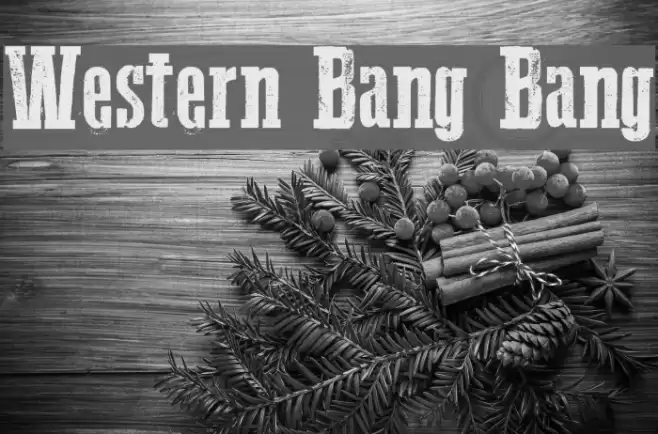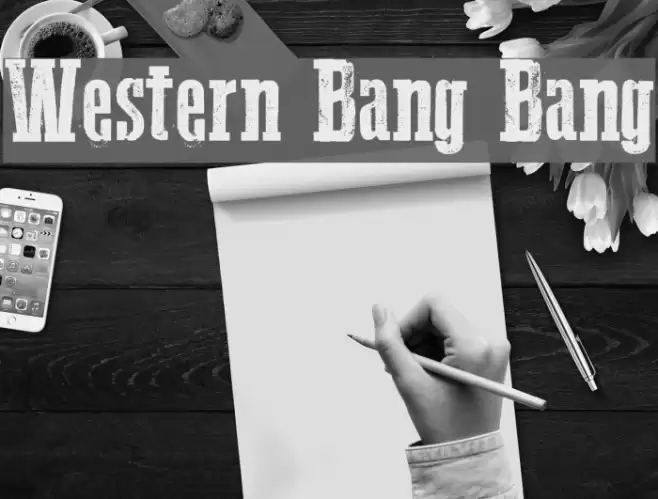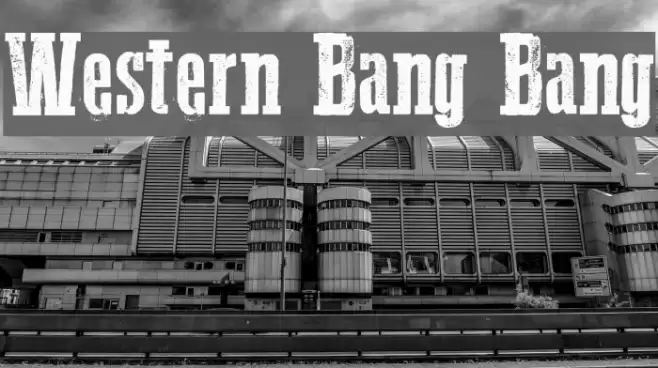
Western Bang Bang Font
Western Bang Bang Description
This font features a bold, distressed style reminiscent of vintage Western aesthetics. The characters are heavily textured, giving them a rugged, worn appearance that suggests a sense of history and adventure. The uppercase and lowercase letters maintain a consistent design, with thick strokes and sharp serifs that enhance their boldness. Numbers and special characters follow the same distressed pattern, ensuring uniformity across all glyphs. This font's unique style makes it ideal for projects that require a touch of nostalgia or a bold statement.
A bold, distressed font with a vintage Western style from Uncategorized fonts.
• Proposed Projects: Ideal for posters, branding, and themed events that require a vintage or Western aesthetic.
• Overall Style: Vintage
• Use Case: Headlines, Logos, Posters